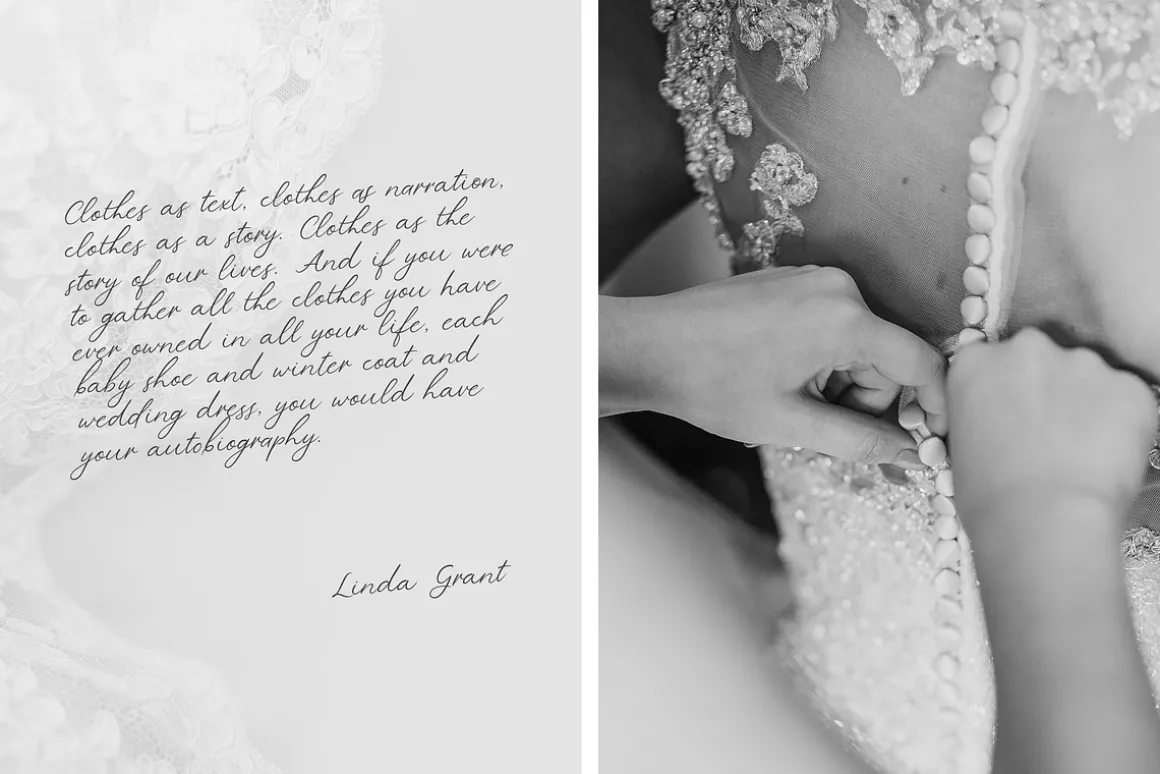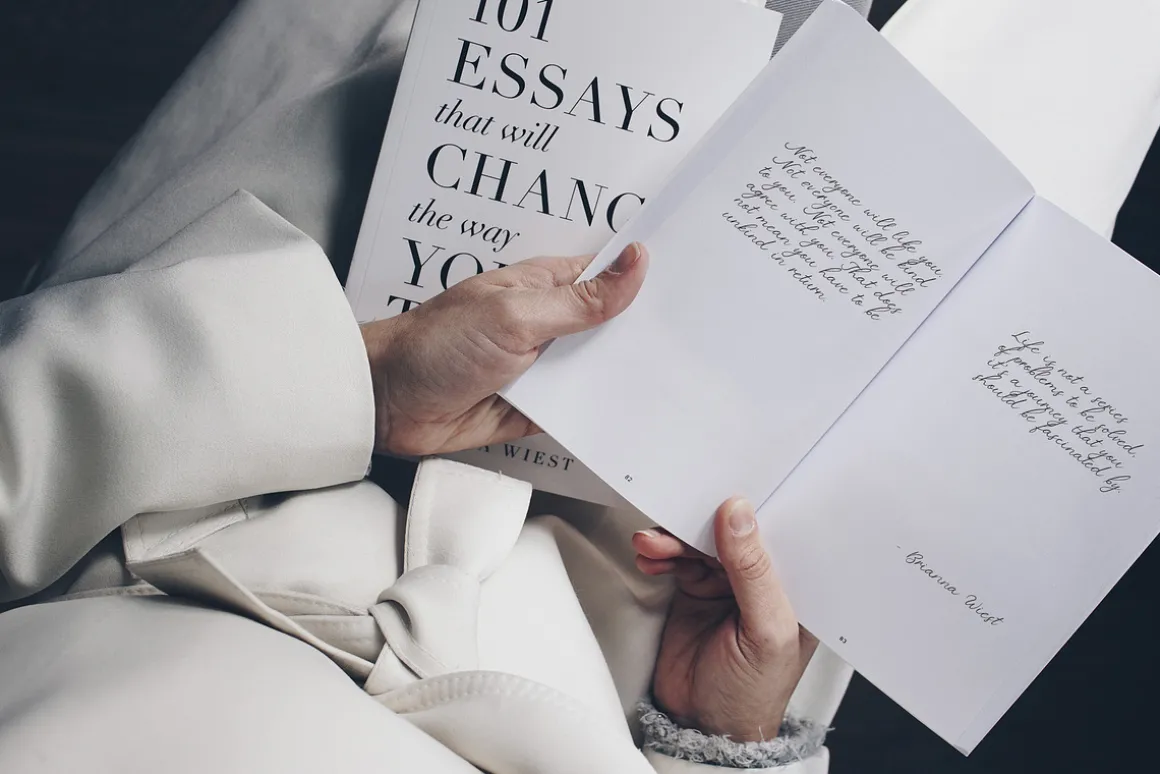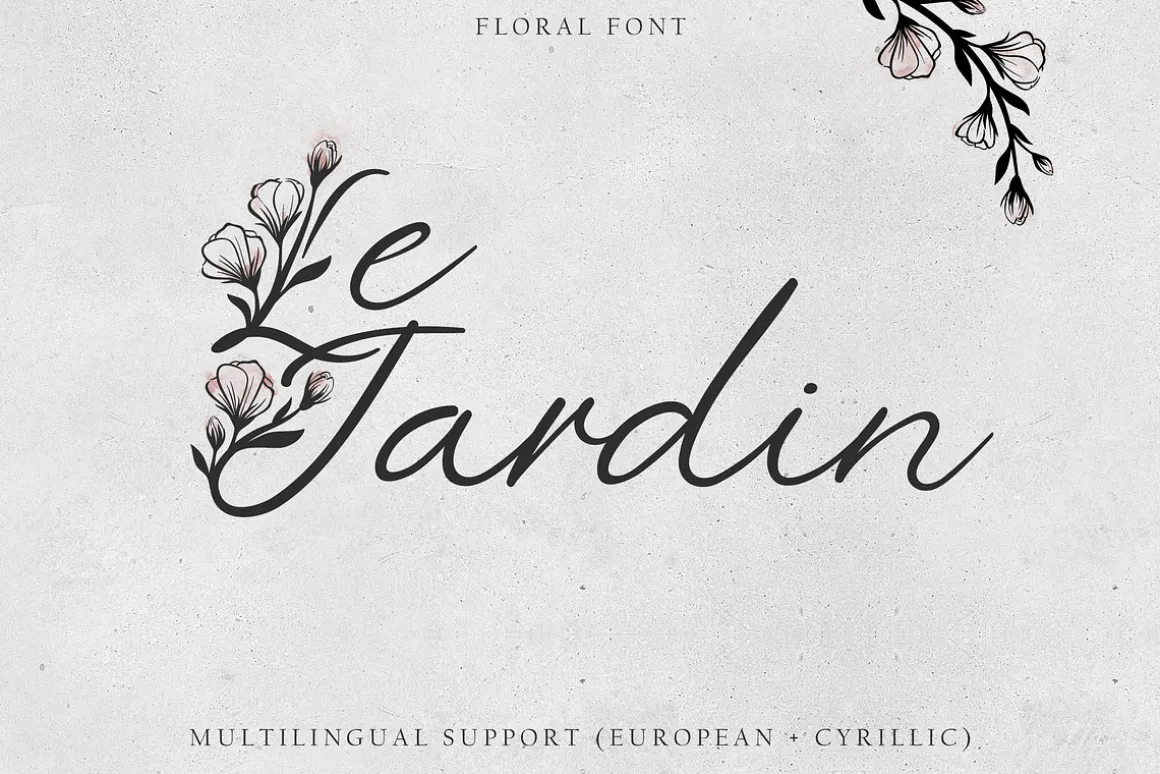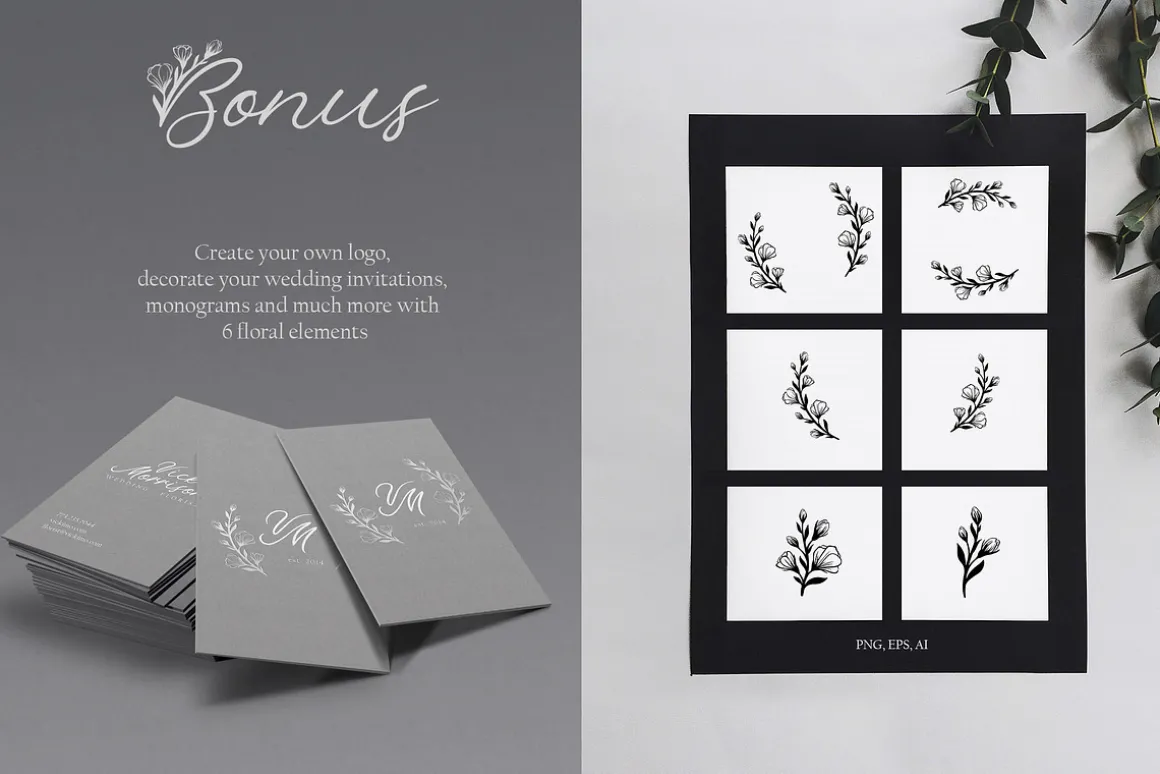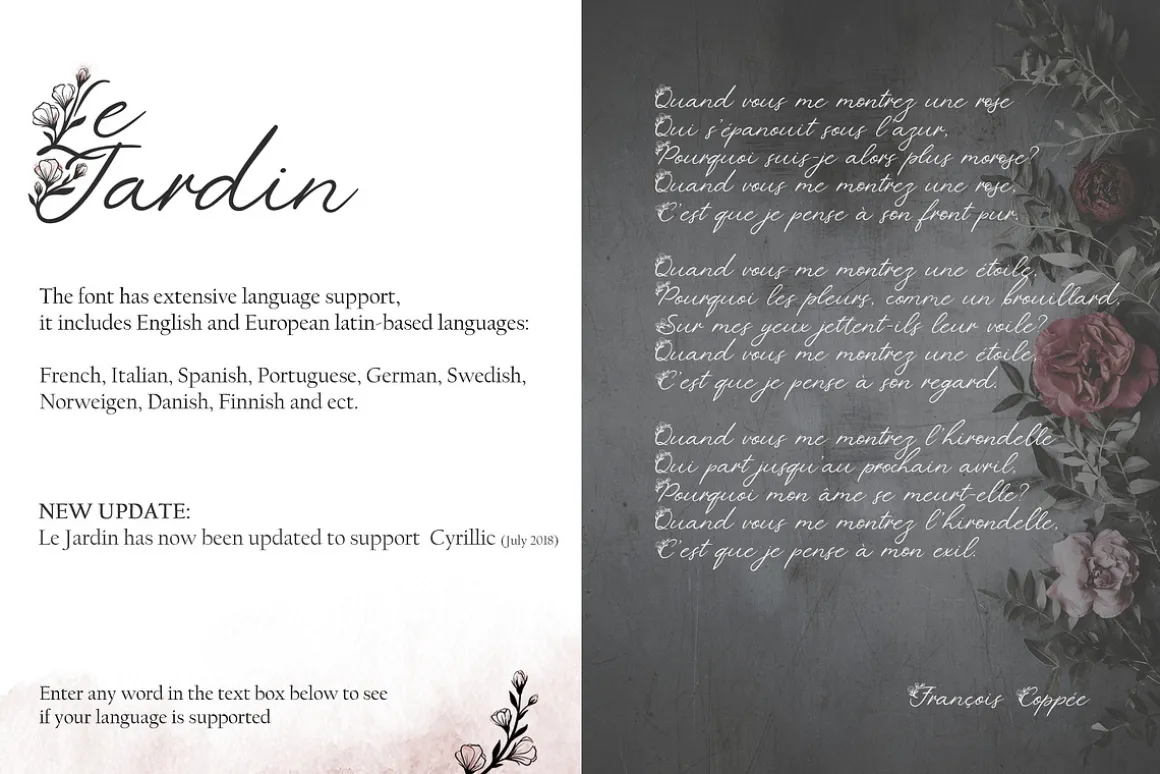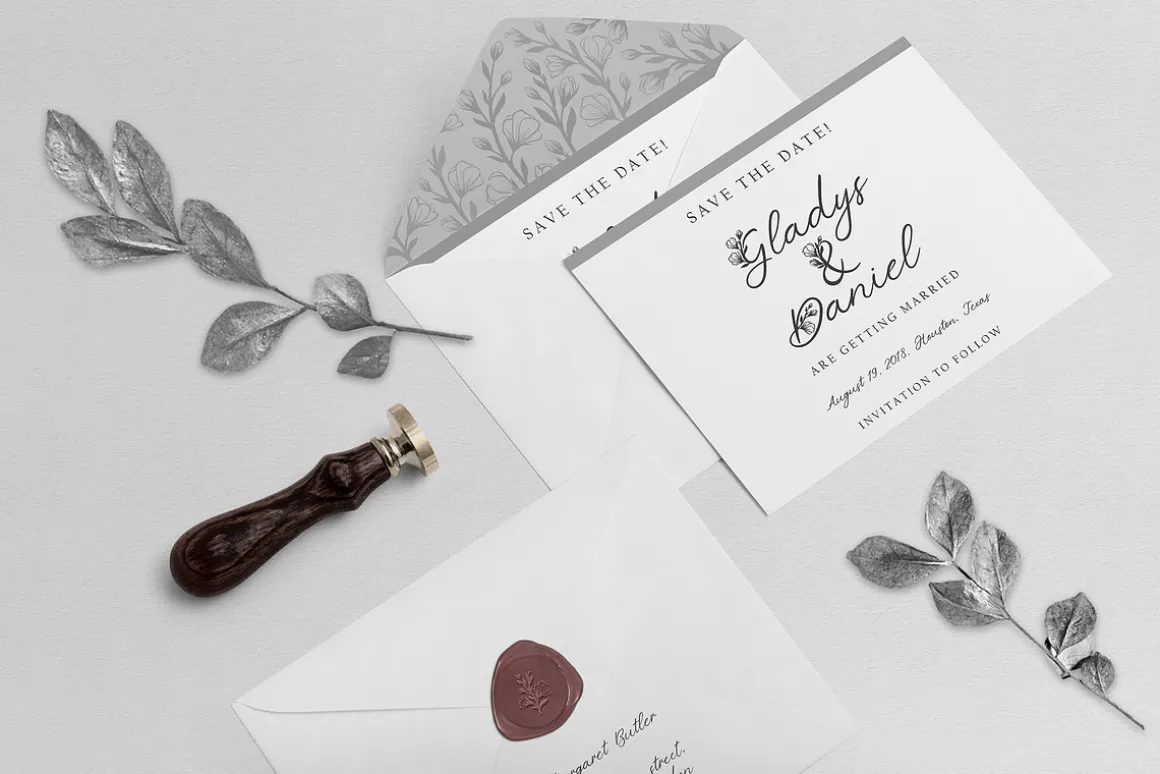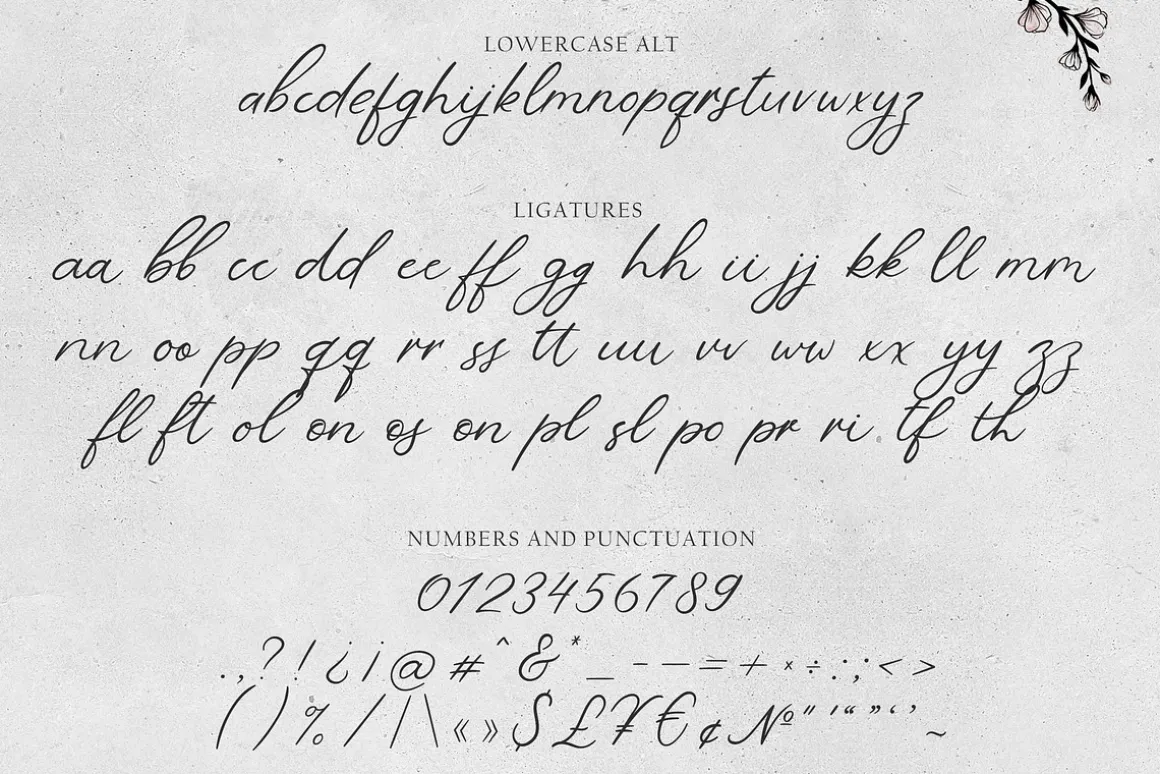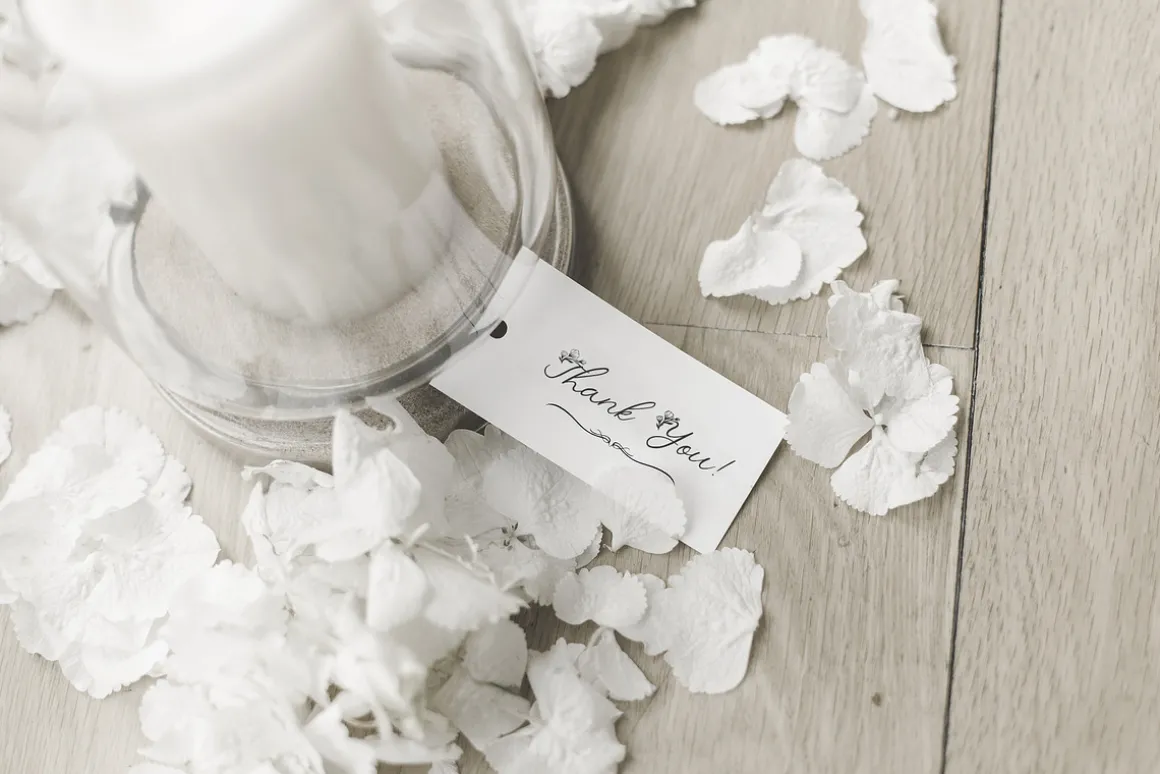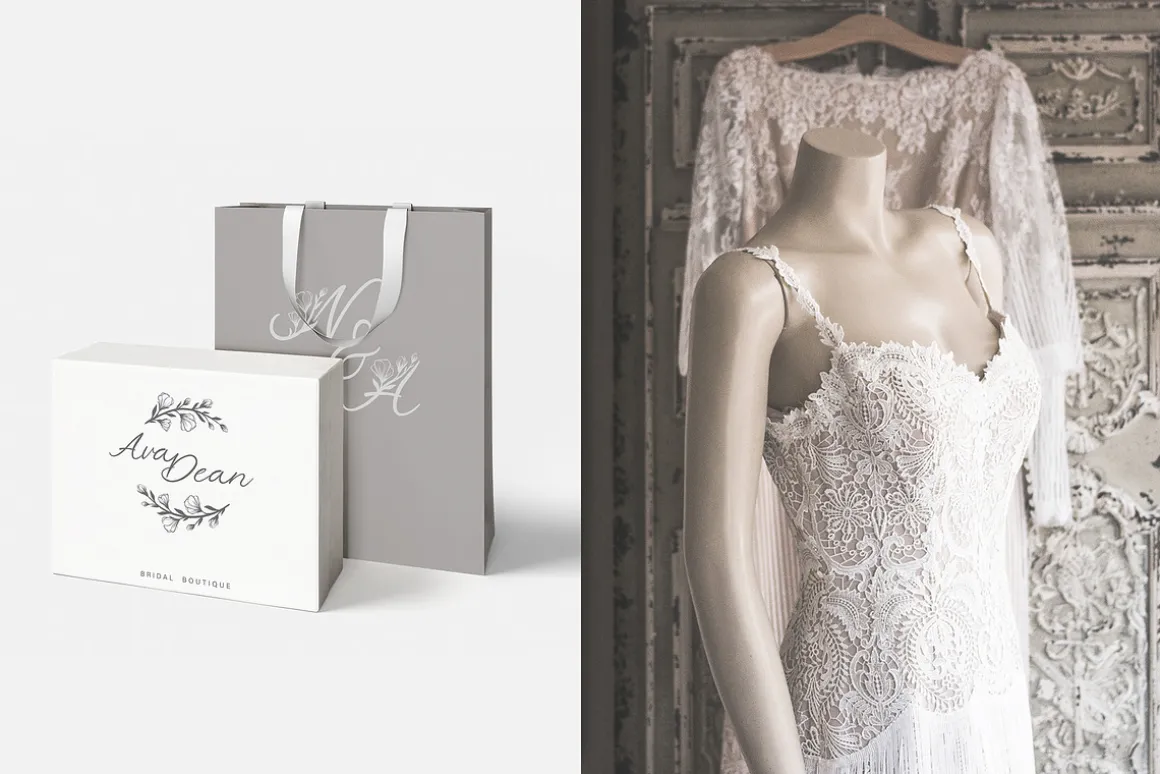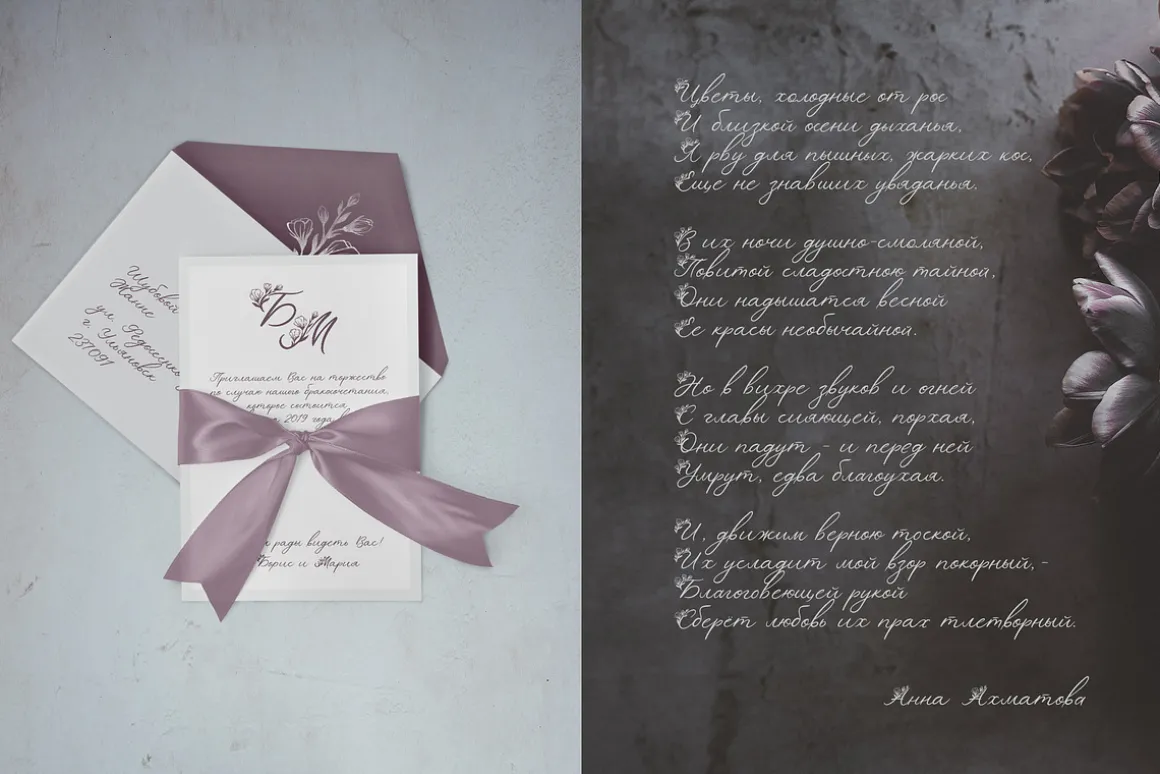
I’m pleased to introduce my new handwritten botanical font Le Jardin.
Le Jardin comes in two styles: Floral and Regular.This font includes ligatures and full set of lowercase alternates to make your text as close to a natural handwritten script as possible.
Le Jardin Floral is an elegant, decorative, feminine font. Floral uppercase letters are ideal for your wedding monograms and logos. Use this font for wedding invitations, branding, packaging, magazines, florist shops, social media, restaurant menus, greeting cards, headers and many more.
Le Jardin Regular is a modern calligraphy font. It’s perfect for wedding design projects, instagram, invitations, signatures, watermarks, logos, letterpress address, titles, birthday invitations, handwriting and more.
The font has extensive language support, it includes English and European latin-based languages:French, Italian, Spanish, Portuguese, German, Swedish, Norweigen, Danish, Finnish and other.
UPDATE: Le Jardin has now been updated to support Cyrillic with ligatures and alternates.